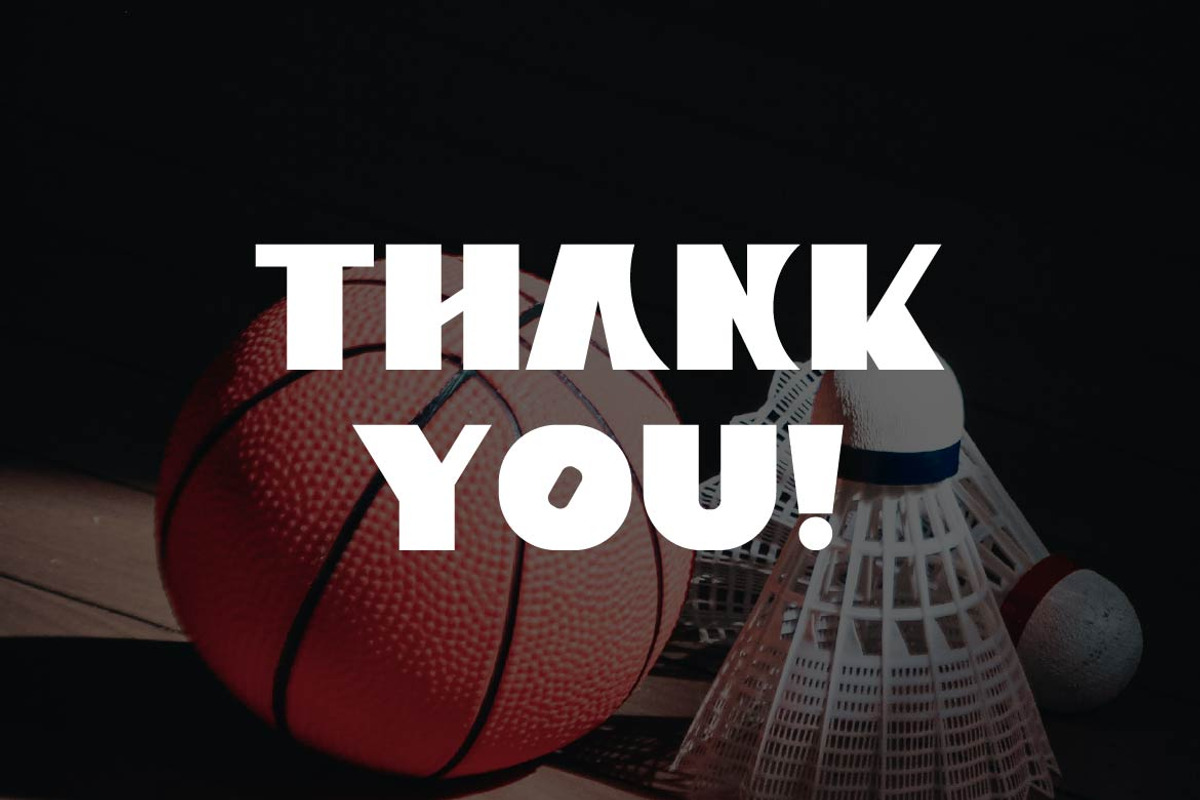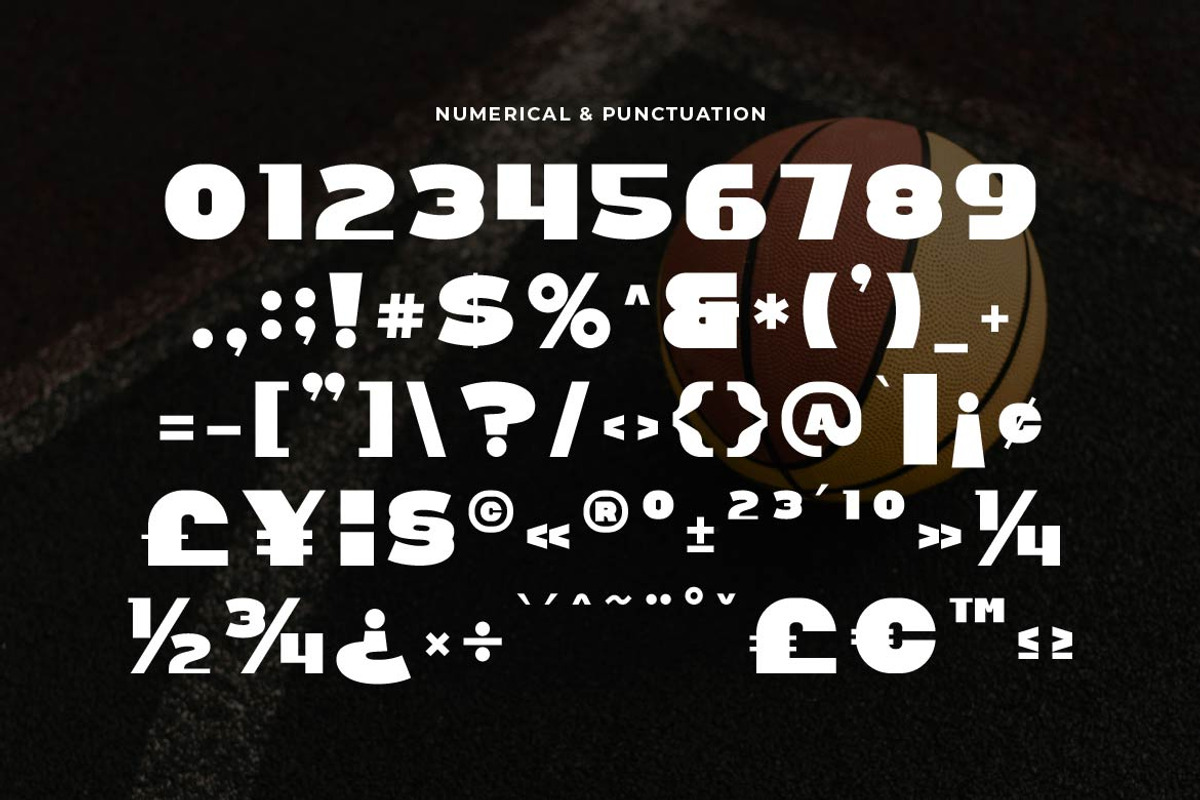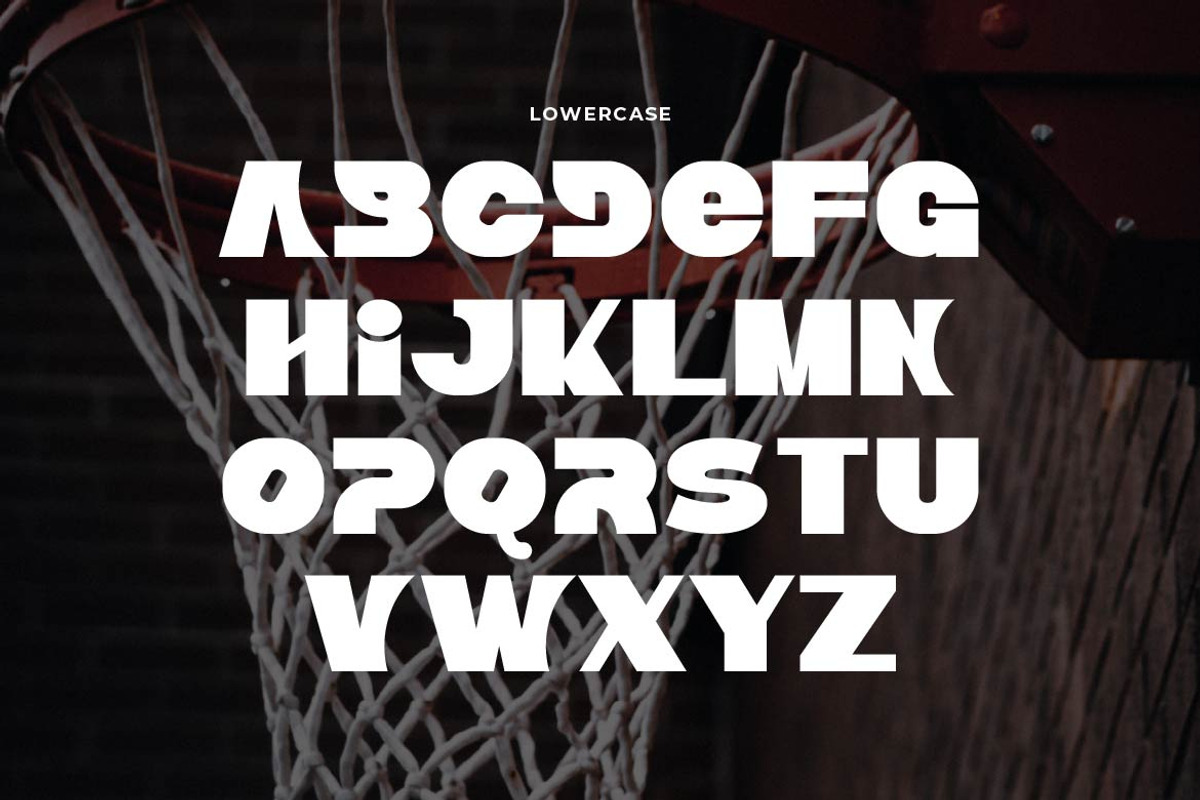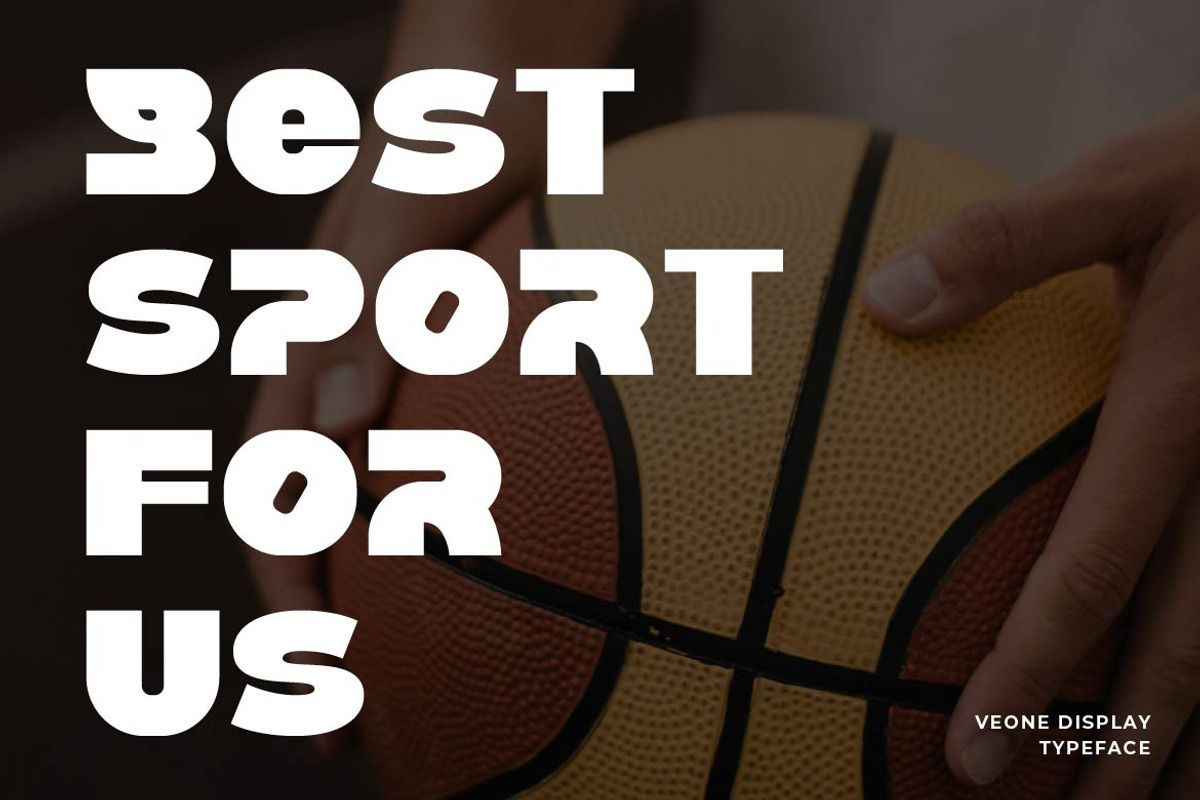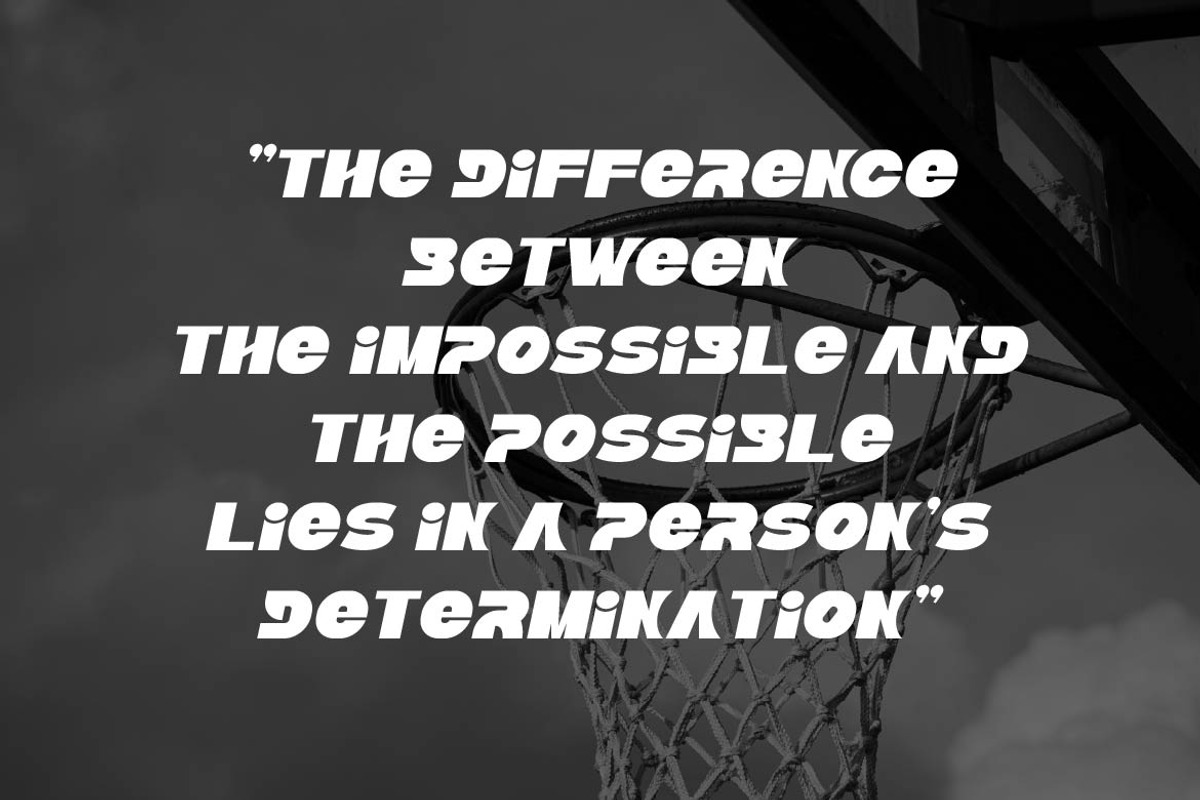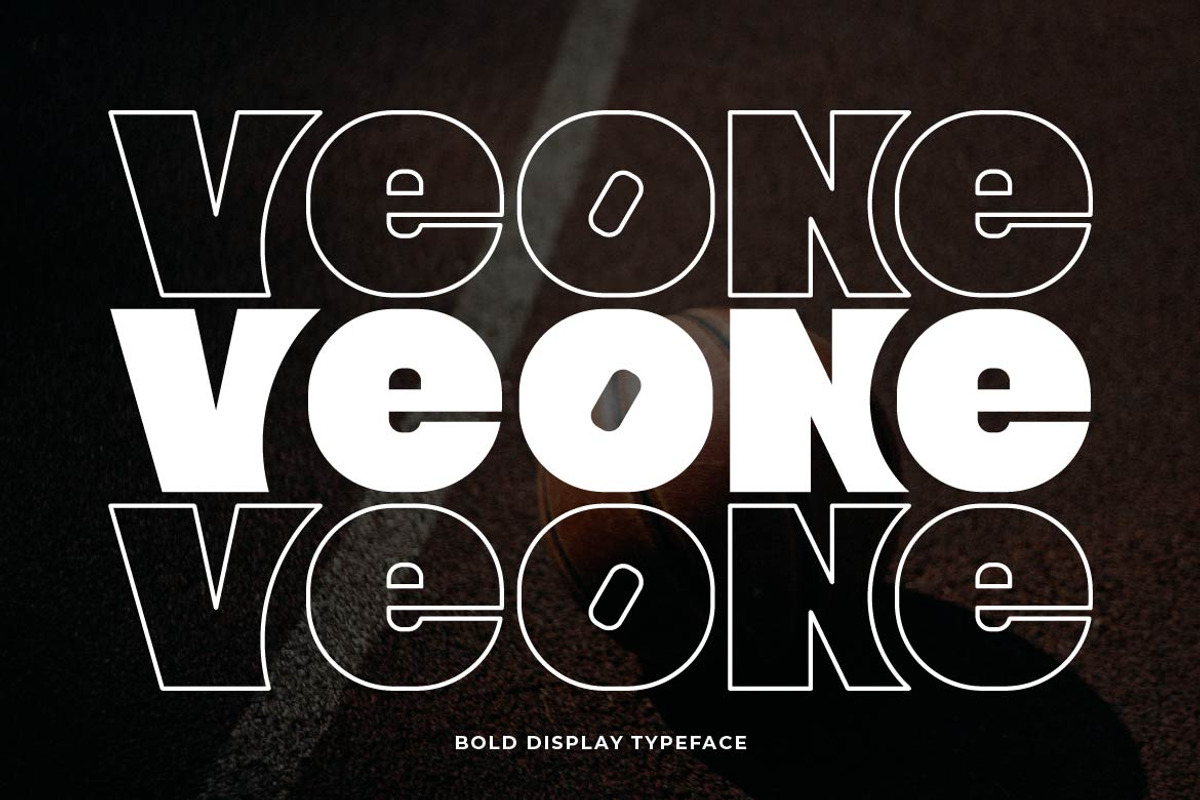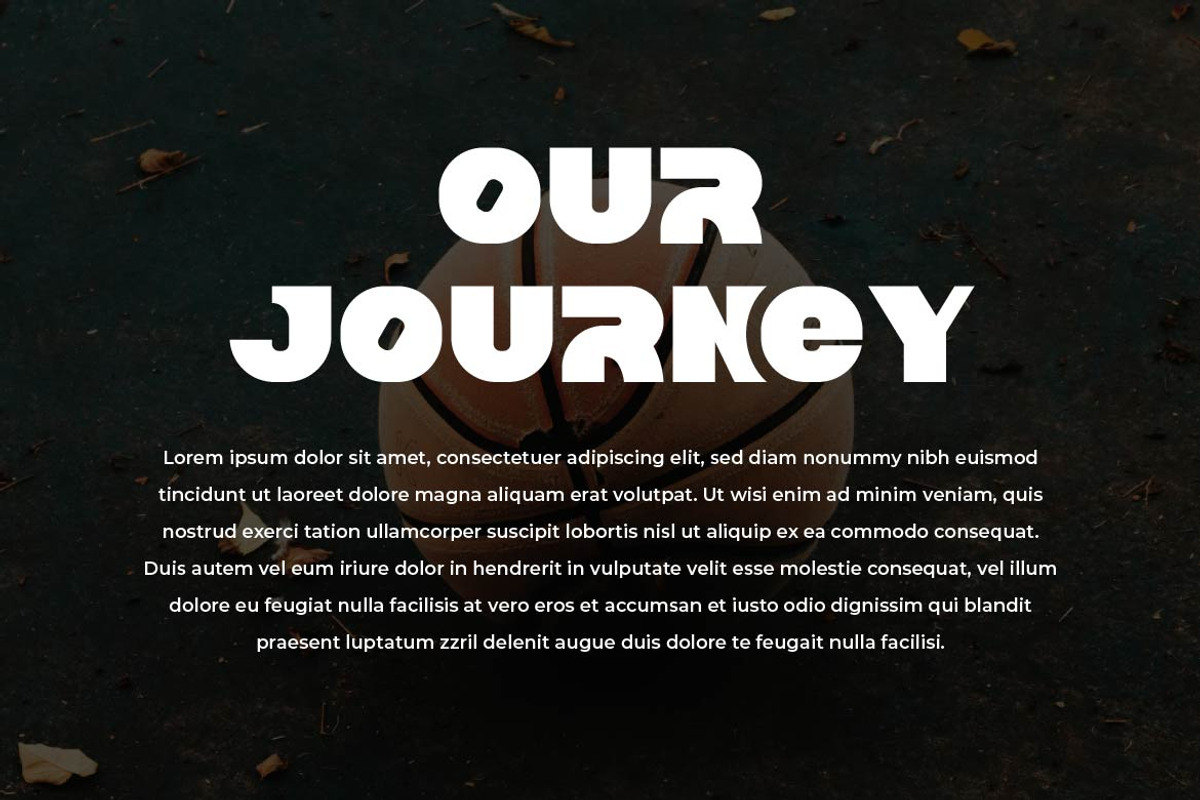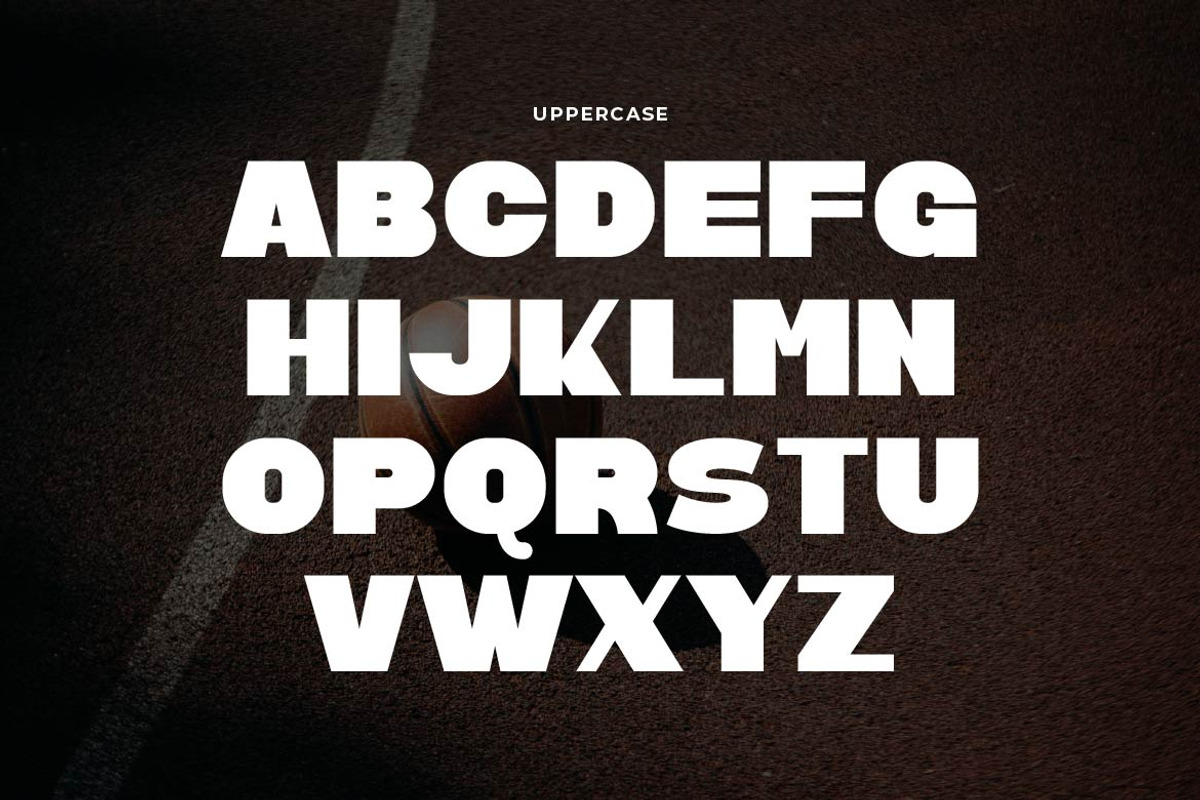
Veone – Bold Strong Display Font
Veone is a bold and strong display typeface designed to command attention. With its heavy weight, solid structure, and confident letterforms, Veone delivers maximum visual impact in headlines, posters, logos, packaging, and branding projects that demand presence.